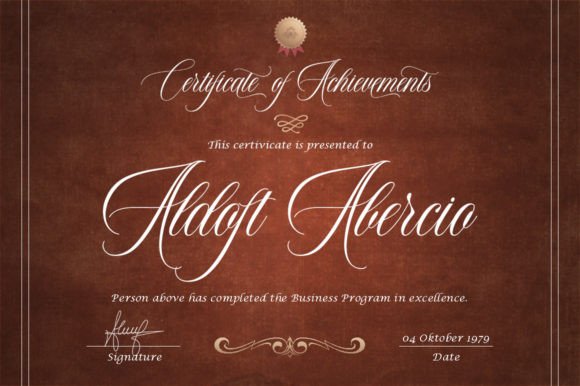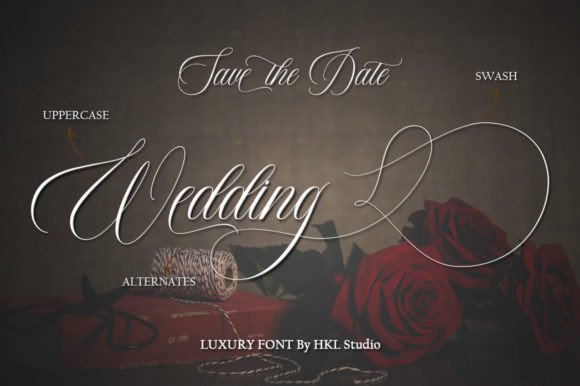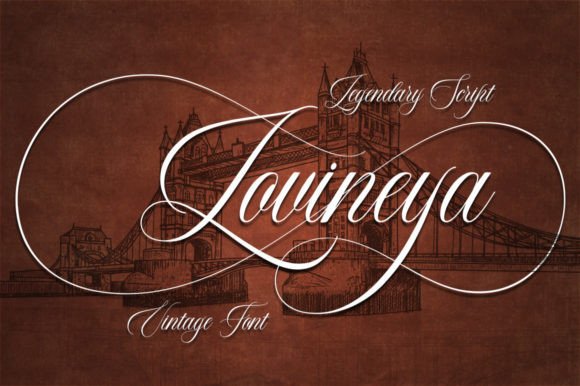
Introduction to Saverny Font
Have you ever been browsing through a vintage bookstore and stumbled upon an old love letter or a handwritten recipe that instantly transports you to a bygone era? That’s the magic of calligraphy, and it’s exactly what the Saverny Font embodies. This enchanting script font is a design treasure trove that will make your creative project shine with elegance and sophistication.
Whether you’re a seasoned designer or a beginner looking for a high-quality design resource, the Saverny Font is a must-have in your arsenal. Its smooth, clean, and feminine lines make it perfect for a variety of applications, from wedding invitations to alcohol labels, and even romantic cards. With its free download option, you can instantly get started on your next creative project, and with a transparent background, you can easily place it over any image or design element.
As a valuable design resource, the Saverny Font offers unparalleled flexibility and versatility, making it an essential tool for designers looking to add a touch of glamour and sophistication to their work. So, why settle for a generic font when you can have a piece of design history at your fingertips? Get ready to unleash your creativity with the Saverny Font, and experience the magic of vintage calligraphy for yourself.
Key Features of Saverny Font
- High-quality design: The Saverny Font is a premium font suitable for any creative project requiring a touch of elegance.
- Unique characteristics: The Saverny Font features a unique blend of modern and vintage elements, making it perfect for designers looking to add a touch of sophistication to their work.
Honest Review: Saverny Font
I recently had the chance to work with the Saverny Font, and I must say it’s been a game-changer for my design projects. This free download has been a fantastic addition to my design resource library, offering a unique and elegant style that’s perfect for creative projects.
One of the standout features of the Saverny Font is its high quality and versatility. The font is available in various weights and styles, making it easy to customize and adapt to different design needs. I’ve used it for logos, headings, and even body text, and it always looks great.
- ✨ Unique and elegant design style
- ✨ High-quality vectors and transparent background options
- ✨ Versatile and adaptable for different design needs
- ⚠️ Limited character set and language support
Overall, I’m really impressed with the Saverny Font, and I would highly recommend it to designers and artists looking for a high-quality and versatile font for their creative projects.
Saverny Font
The Saverny Font is ideal for creative projects, including social media graphics, posters, presentations, and documents. It’s also perfect for personal branding, logos, and other design elements.